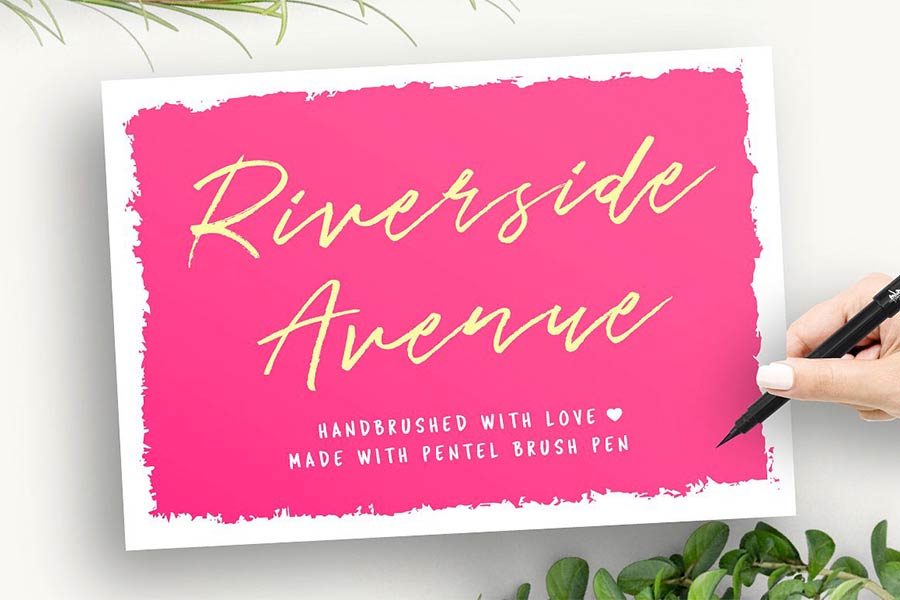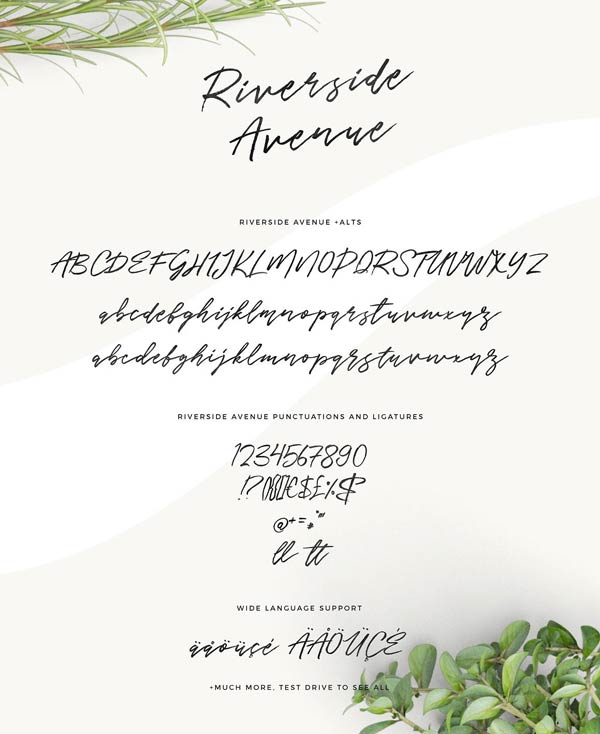
Riverside Avenue is a beautifully hand-lettered brush font that you can download for free. According to the creator, Mat, this font was authentically written with Pentel Brush pen in his Scandinavian style studio! I bet the studio looks cozy and inspiring!
The font packs with alternates for the lowercase letters for richer and deeper design variations, and it works perfect for wedding card invitations, logos, social media banners and more.
- Designer: Mats-Peter Forss
- Category: Calligraphy/Brush, Handwriting